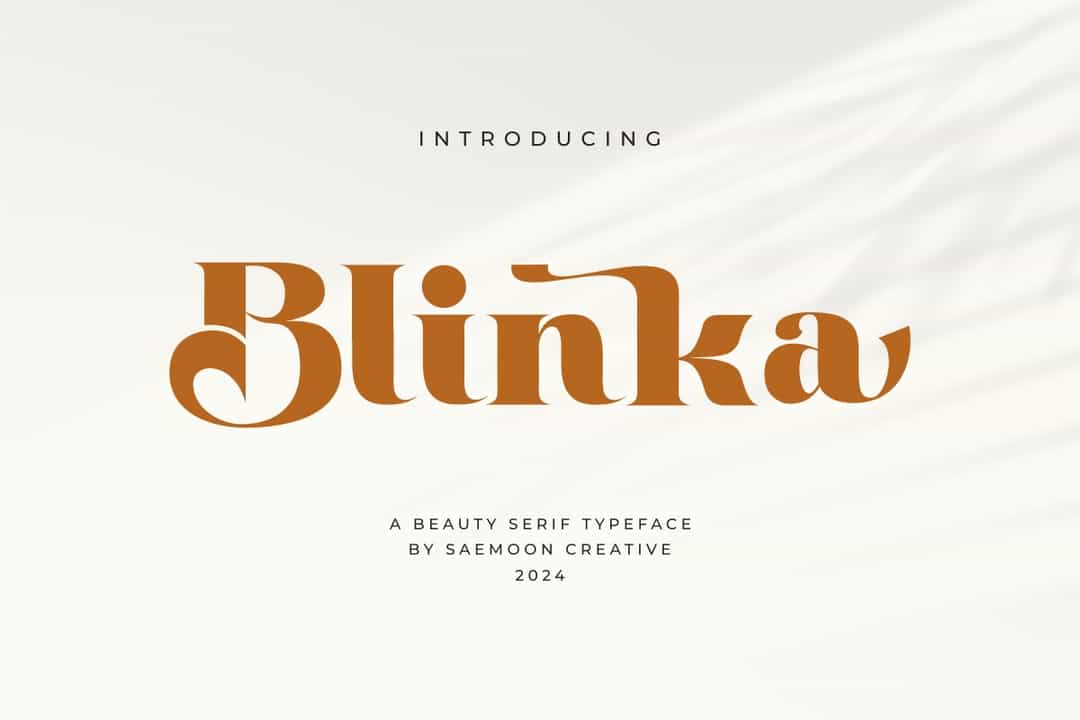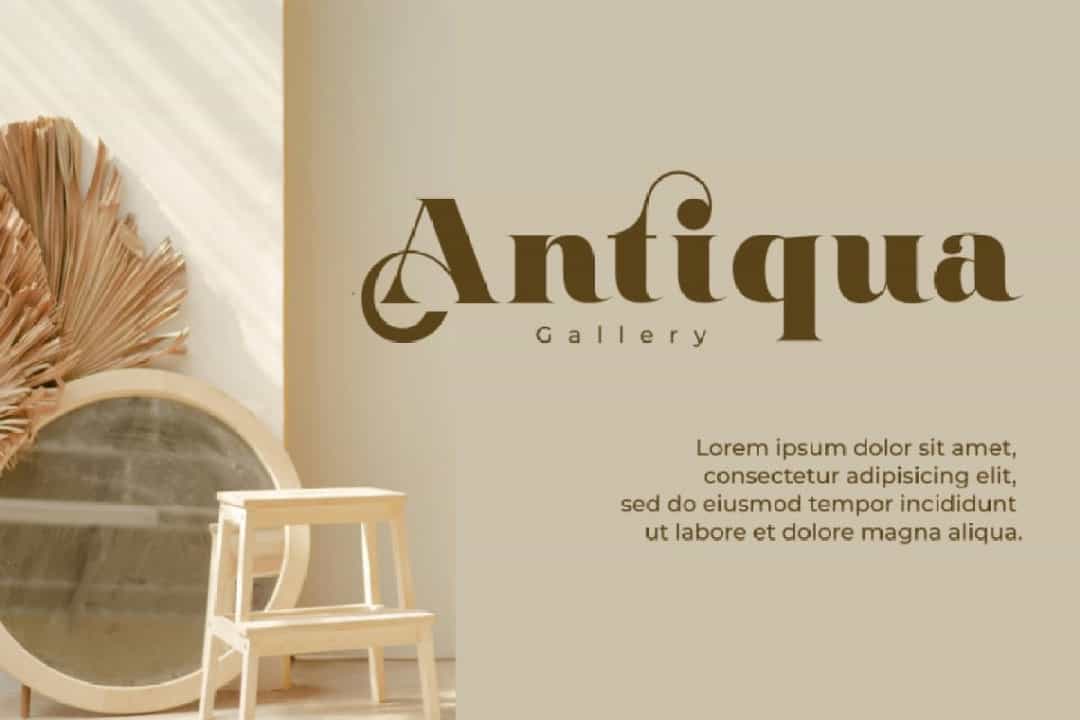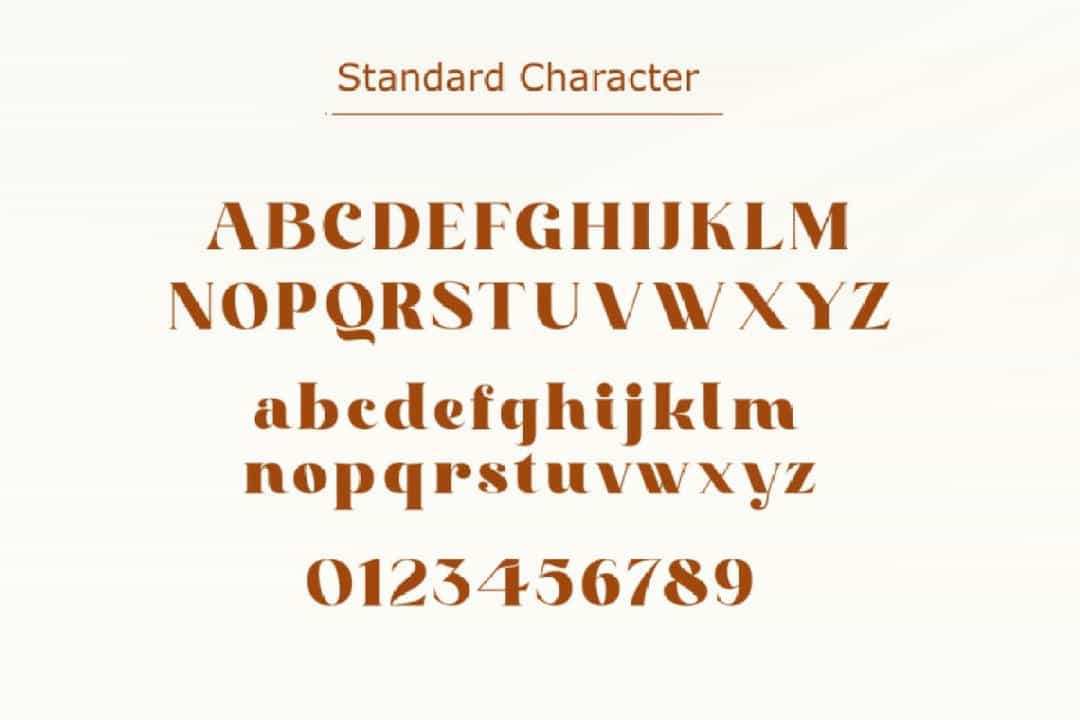
Blinka is an elegant serif font created to add sophistication and sophistication to various design concepts. Boasting beautiful features, Blinka brings classic yet modern elements into designs with its beautiful features.